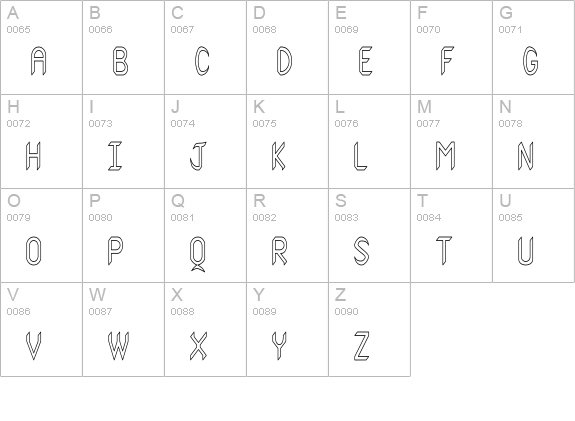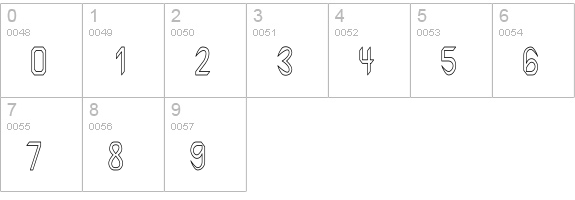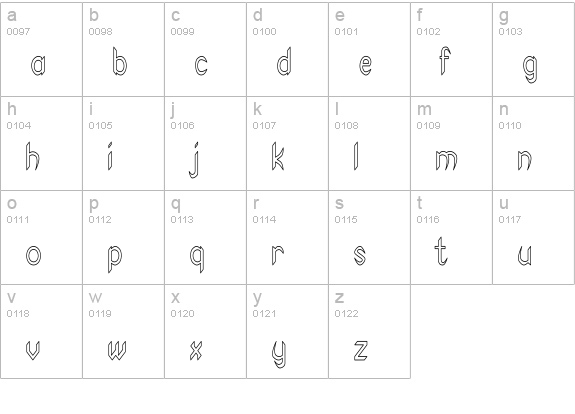
CanaithHC is a beautifully crafted font that exudes elegance and sophistication. With its intricate details and stylish curves, this font is perfect for adding a touch of class to any design project. Whether you are creating invitations, logos, or branding materials, CanaithHC will surely make a lasting impression. The best part? CanaithHC is available for free download at FontsMarket.com! This means you can easily access this stunning font and use it in your projects without any cost. Don't miss out on the opportunity to elevate your designs with CanaithHC - download it today and let your creativity shine!